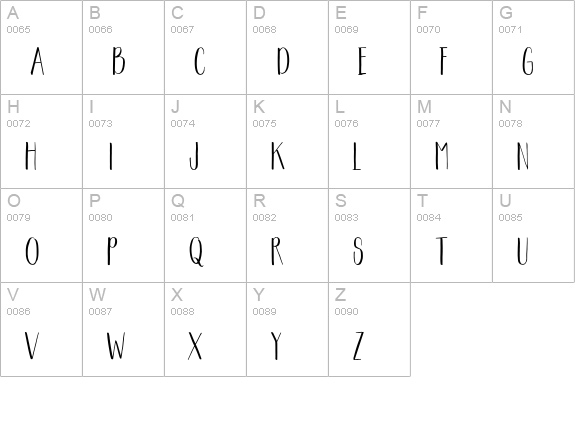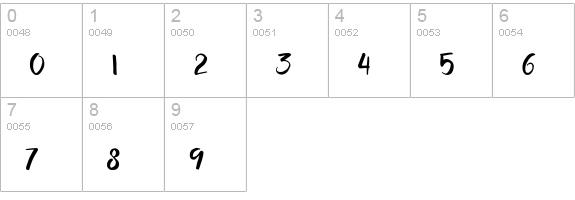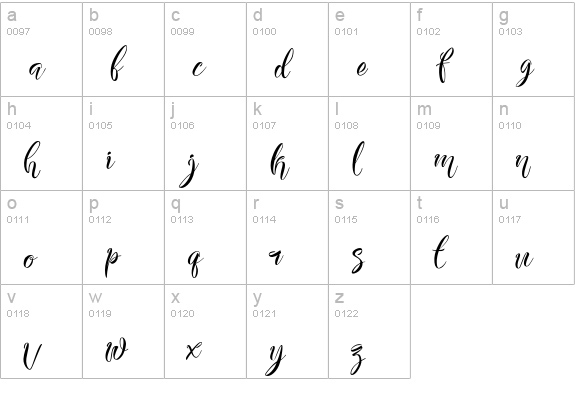
Seilla Script Font Details
Seilla Script is a stunning and elegant font that exudes sophistication and charm. Its flowing lines and delicate curves give any design a touch of class and beauty. Perfect for wedding invitations, logos, branding, and more, Seilla Script adds a unique and stylish flair to any project. The best part about Seilla Script font is that it is completely free! You can download this gorgeous font at FontsMarket.com and start using it in your designs right away. Don't miss out on this amazing opportunity to elevate your projects with Seilla Script font, available for free download now.